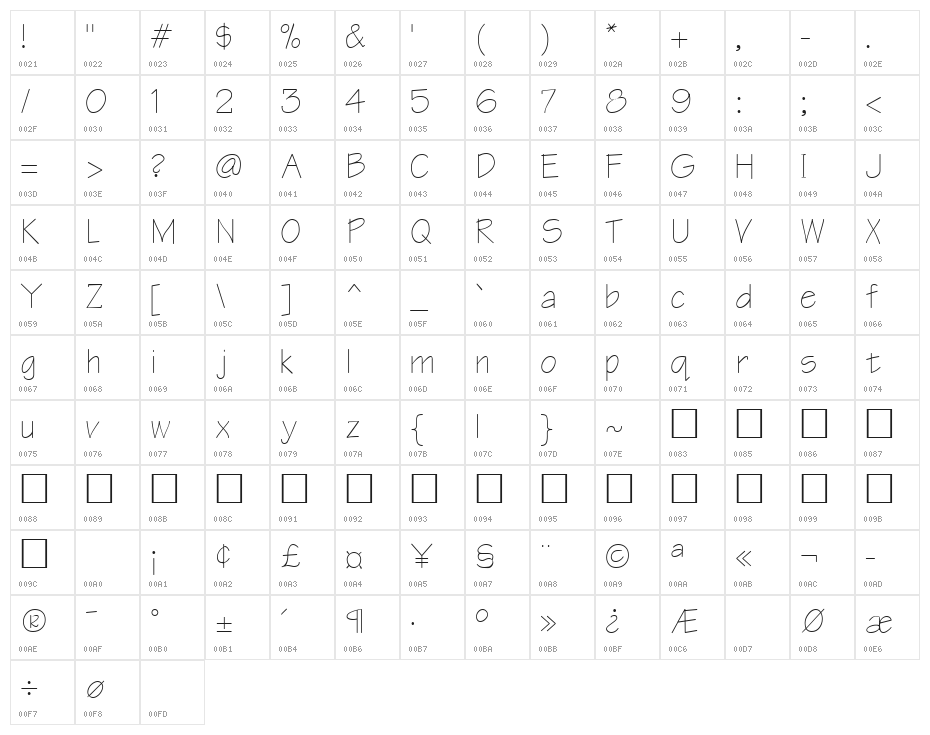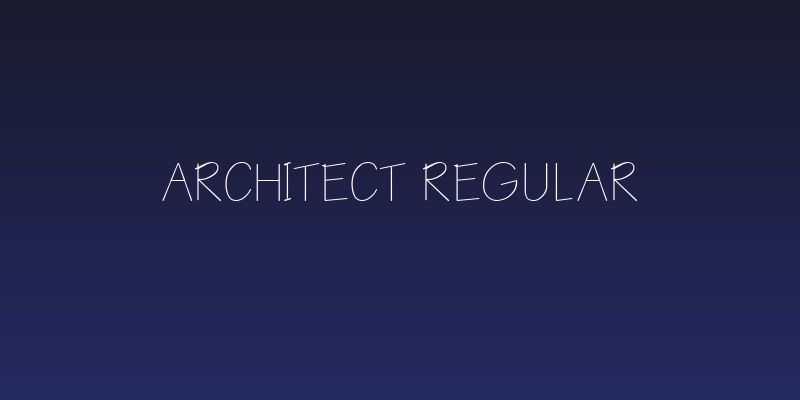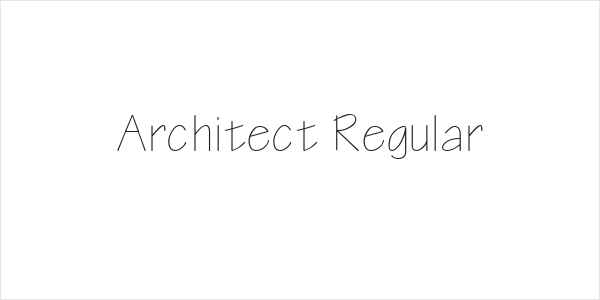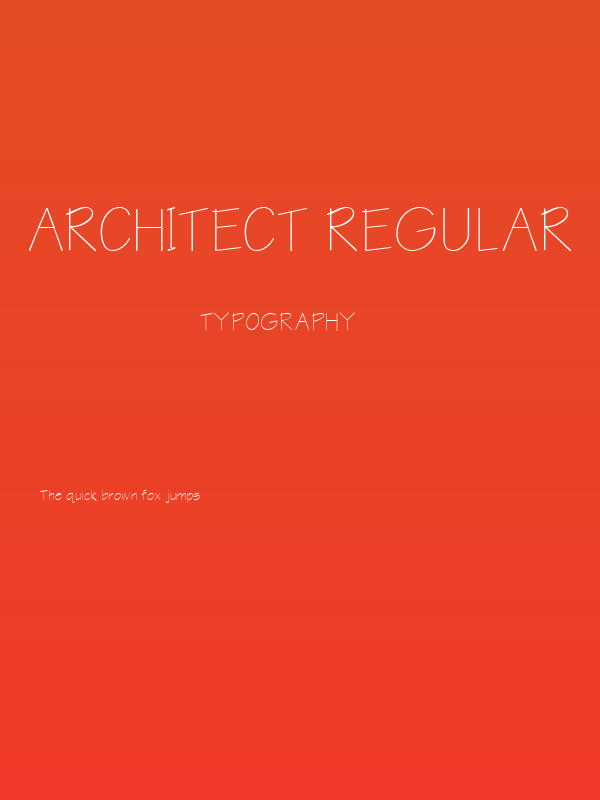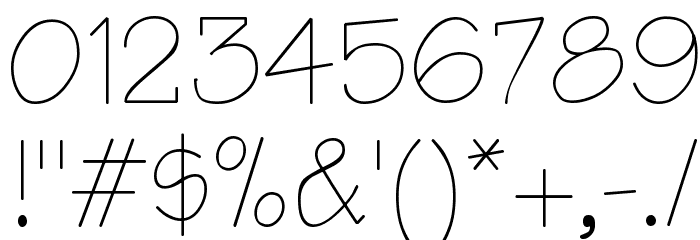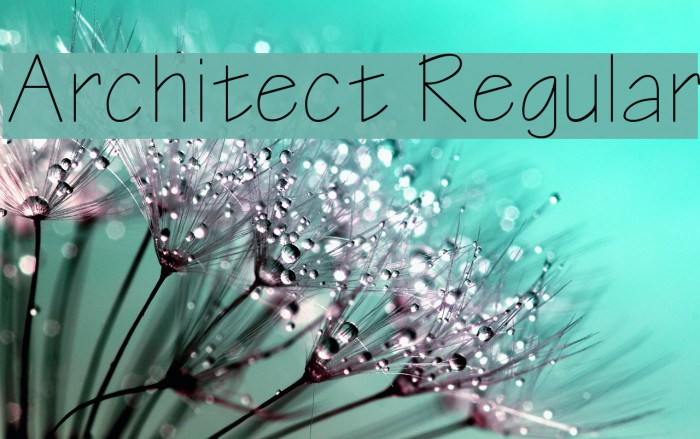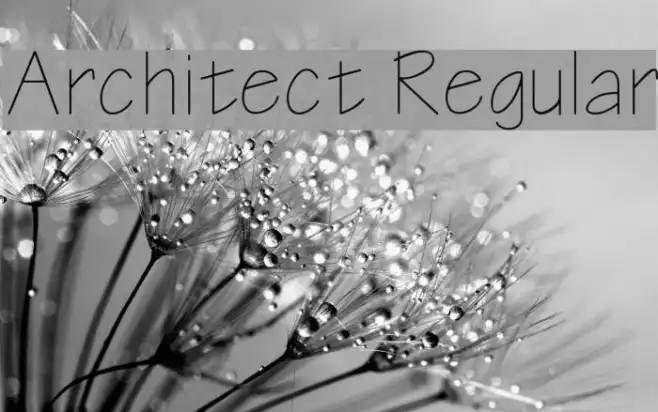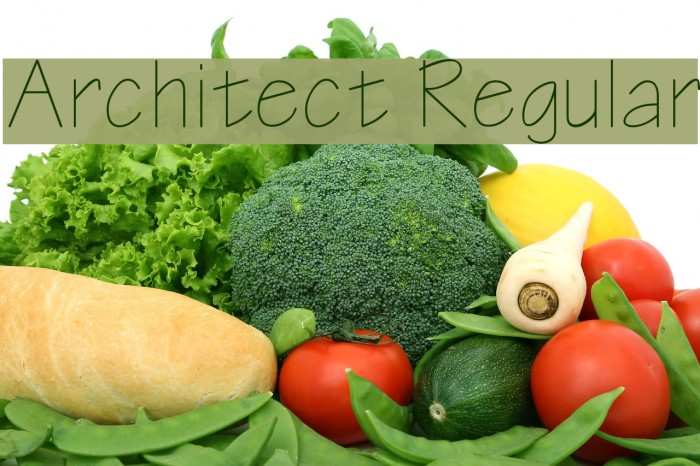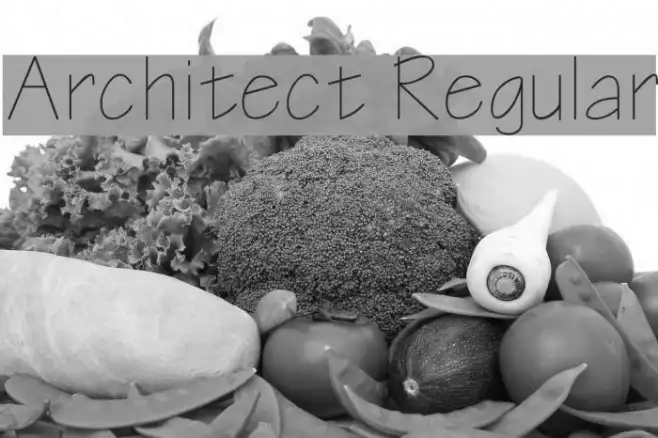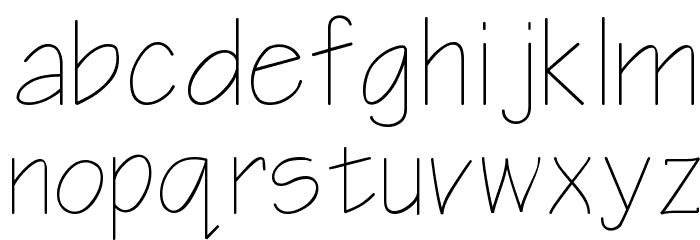
Architect Regular Font
Architect Regular Description
This font features a clean and precise design, reminiscent of architectural blueprints. The characters are constructed with thin, uniform lines that convey a sense of clarity and professionalism. The uppercase letters are tall and slightly narrow, while the lowercase letters maintain a consistent height, creating a harmonious balance. The numerals are straightforward and align well with the overall aesthetic. Special characters are elegantly integrated, maintaining the font's cohesive look. Its simplicity and elegance make it suitable for projects that require a modern and technical appearance.
| Use Case | Headlines, Technical documents, Branding |
| Proposed Projects | Ideal for architectural presentations, technical documents, modern branding, and minimalist design projects. |